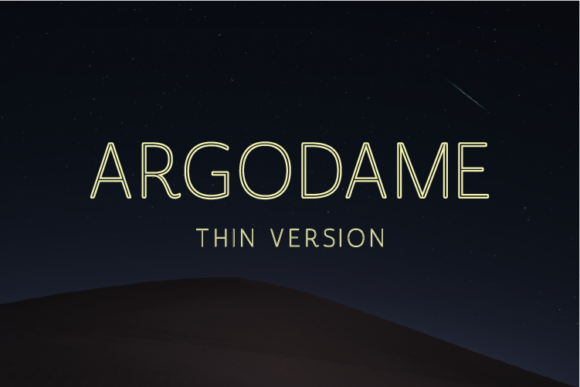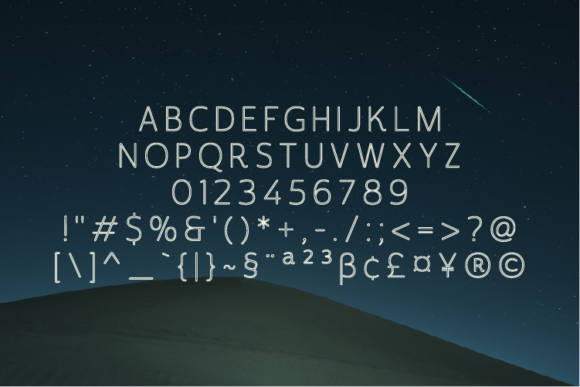
Argodame Outline Thin Font
About Argodame Outline Thin Font
Argodame is a modern sans serif font carefully created with a touch of elegance. This is a beautiful combination of timeless elegance and authentic calligraphy. It features an incredibly classic style, while still keeping a friendly feel. Argodame is the perfect font for making original and outstanding designs.